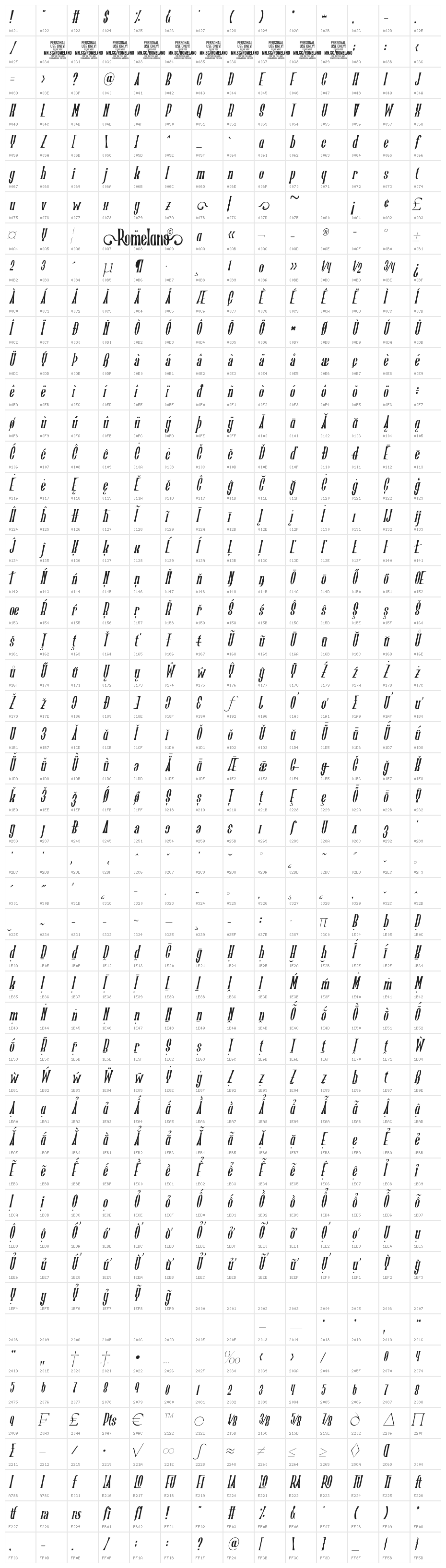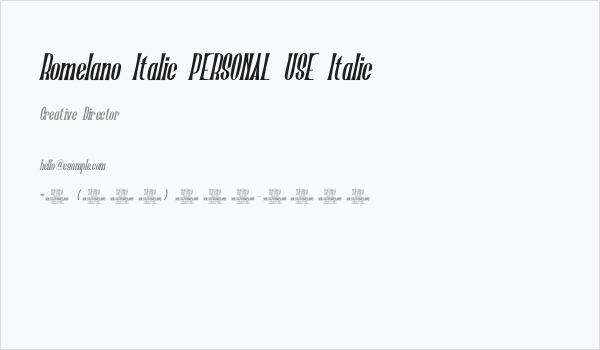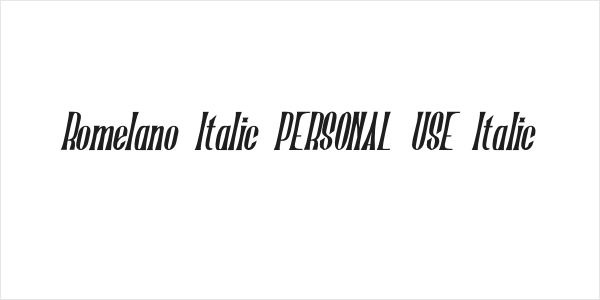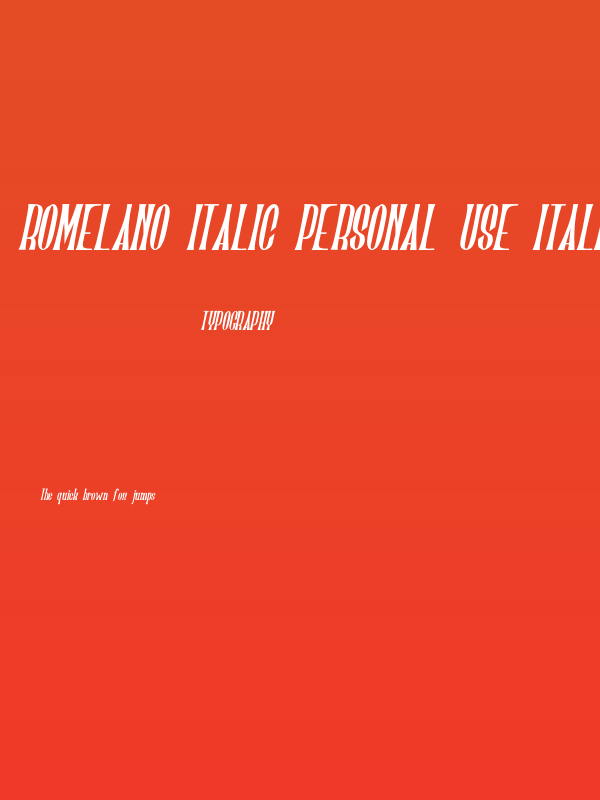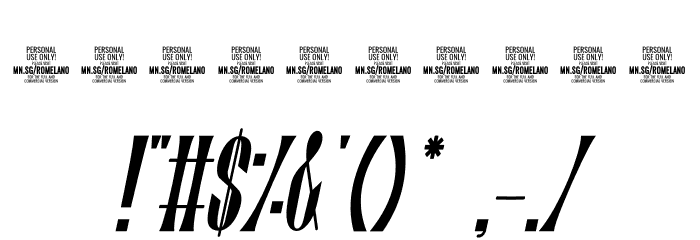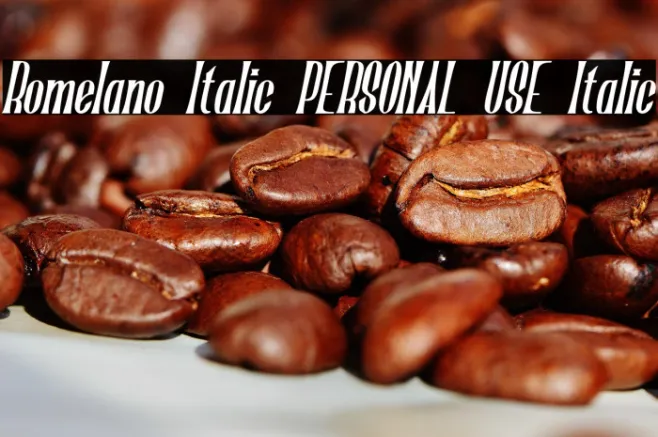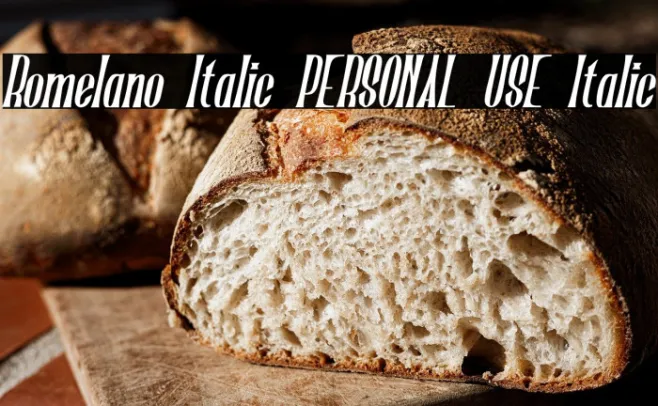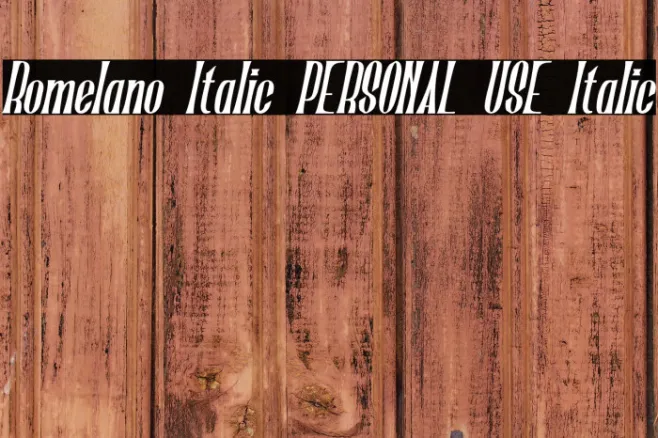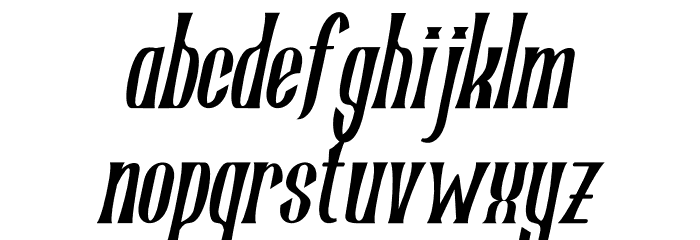
Romelano Italic PERSONAL USE Italic Font
Romelano Italic PERSONAL USE Italic Description
This font features a dynamic and elegant italic style with a distinct slant, giving it a sense of motion and sophistication. The characters are elongated with sharp serifs, creating a striking and bold appearance. The uppercase letters are tall and commanding, while the lowercase letters maintain a consistent flow, enhancing readability. The numbers and special characters are designed to complement the overall aesthetic, making them suitable for various design needs. The font's unique style is perfect for projects that require a touch of elegance and flair.
| Use Case | Headlines, Logos, Editorial design |
| Proposed Projects | Ideal for branding, editorial design, posters, and invitations where a sophisticated and stylish look is desired. |